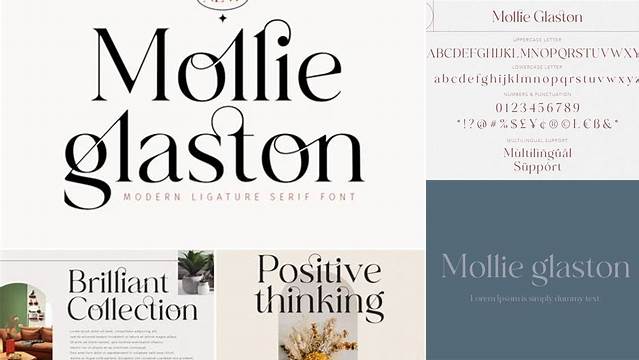
Mollie Glaston Font: Free Download & Design Guide
Hey design enthusiasts! Ever stumbled upon a font that just speaks to you? Today, we're diving headfirst into the world of the Mollie Glaston font family. This is more than just a typeface; it's a statement. And the best part? We'll explore how you can get a mollie glaston font family free download and unlock its design potential. Get ready to transform your projects with elegance and flair! This comprehensive guide will walk you through everything you need to know, from the free download process to creative applications and design tips. So, buckle up, grab your favorite beverage, and let's get started!
1. What Makes Mollie Glaston Font Family Special?
Alright, guys, let's get down to brass tacks: what's the big deal about the Mollie Glaston font? This isn't your run-of-the-mill, run-of-the-mill font. Its unique blend of sophistication and approachability makes it stand out. The Mollie Glaston font, with its delicate serifs and elegant curves, offers a touch of refinement that instantly elevates any design. It's the kind of font that whispers class while still being incredibly readable and versatile. Imagine it adorning wedding invitations, adding a touch of romance to branding materials, or even gracing the pages of your next blog post. The versatility of the Mollie Glaston font is truly remarkable. It adapts effortlessly to a wide range of projects, from digital to print. Whether you're working on a personal project or a professional endeavor, this font family can bring a sense of unity and aesthetic appeal. Let's also highlight the visual personality. The Mollie Glaston font balances a classic feel with a contemporary twist, making it suitable for various design themes. Its elegant form is an excellent choice for design projects that require a touch of style. Moreover, the readability factor is important. The Mollie Glaston font ensures that your message is both beautiful and easy to digest, improving the overall user experience. So, with the mollie glaston font as your design partner, you're not just selecting a typeface; you're making a statement.
3. Understanding the Mollie Glaston Font Family Styles
Let's dive into the heart of the Mollie Glaston font family: the different styles it offers. A well-rounded font family usually presents several variations, and Mollie Glaston is no exception. These styles provide designers with different levels of expression and versatility. Typically, you'll find variations like regular, bold, italic, and perhaps even condensed or expanded versions. Each of these styles serves a unique purpose. The regular style is the workhorse, perfect for body text. It's designed for maximum readability, ensuring that your text flows seamlessly. Then comes bold, which adds emphasis and draws attention to important elements such as titles and headers. Italic versions add a touch of elegance or provide emphasis, making text more visually dynamic. It's ideal for quotes or any text that needs to stand out. Some font families also include condensed versions, which are excellent for fitting more text into a limited space, and expanded versions, which can be used for visual impact. You can enhance your designs by carefully mixing and matching these styles. For example, you could use regular for body text, bold for headings, and italics for emphasis. Playing with these variations will significantly increase the visual appeal of your design. Remember, it's all about creating a hierarchy and guiding the reader's eye. Understanding the different styles of the mollie glaston font family and how to use them is essential for effective design.